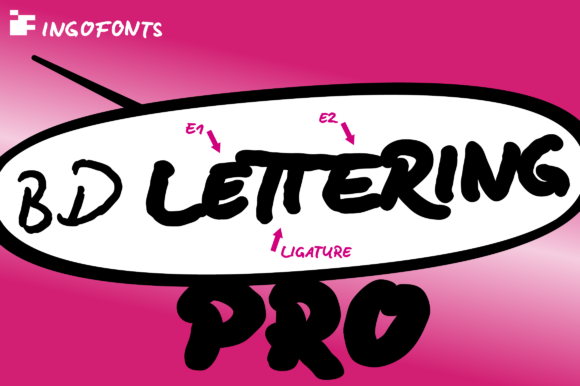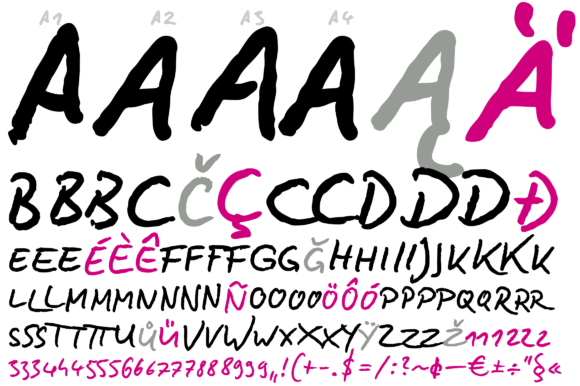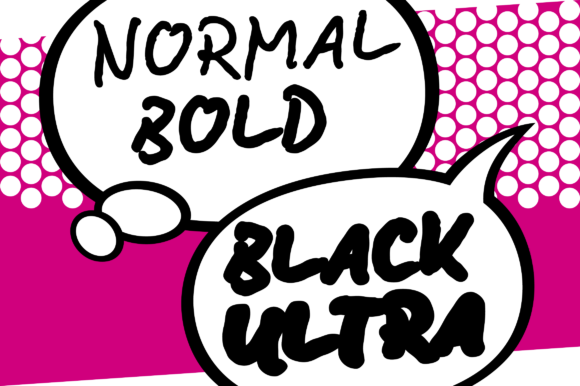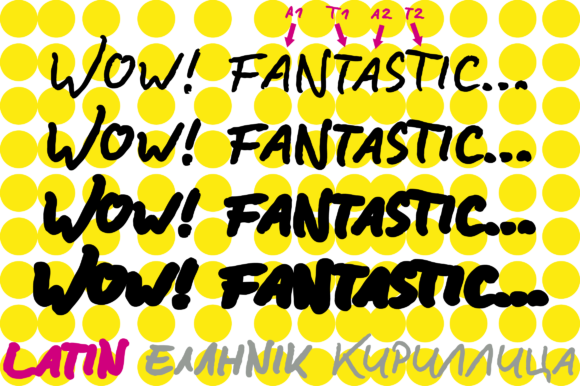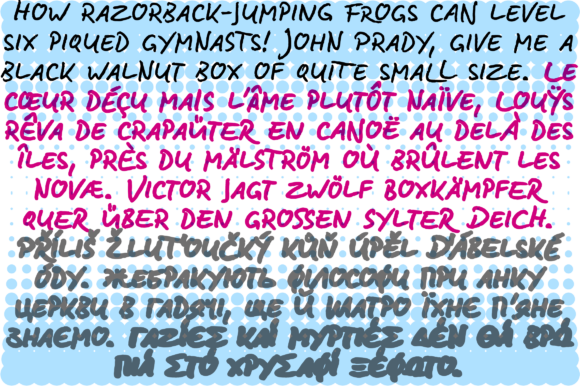
Lettering Pro Font
About Lettering Pro Font
Lettering Pro is a computer font with a handwritten feel. It’s a unique and versatile font, and perfect for any font occasion!